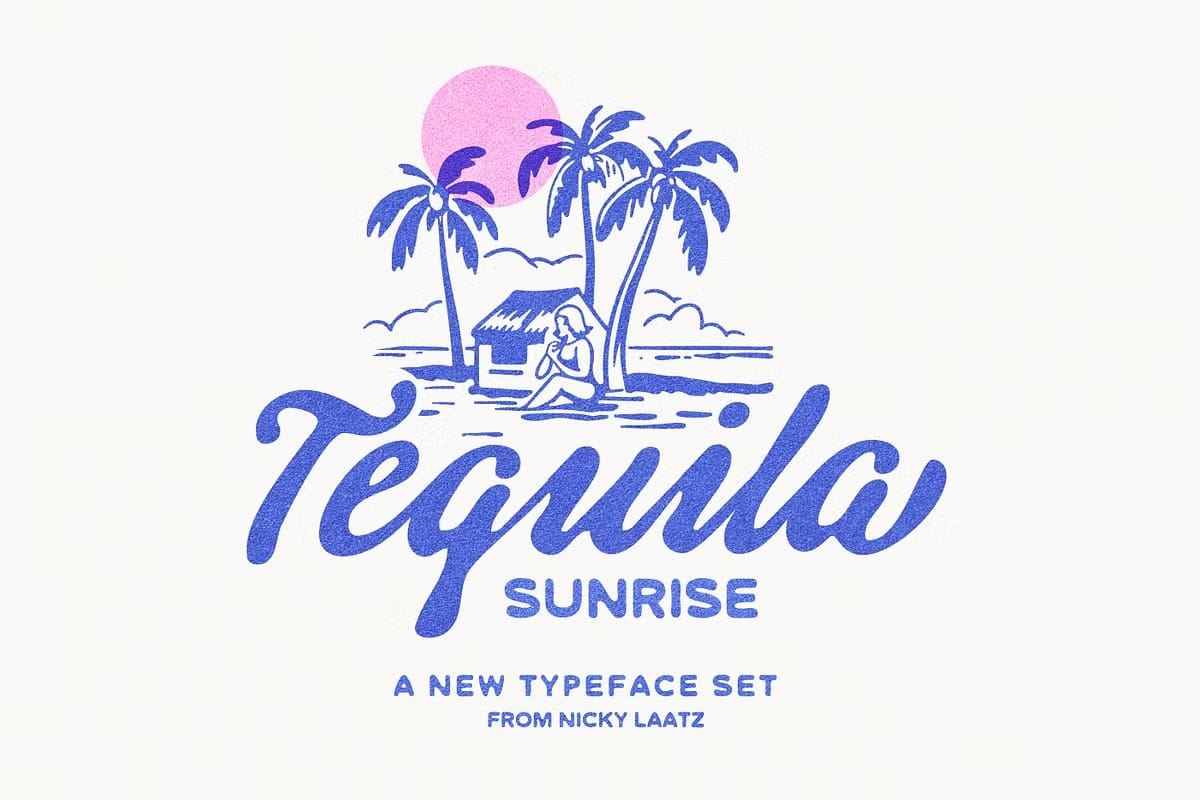
Tequila Sunrise: A Retro-Modern Typeface Duo with Bold Personality
Tequila Sunrise is a dynamic typeface duo that blends a retro-modern script with a perfectly matched inky sans. Designed to work together seamlessly, this font pairing delivers contrast, character, and flexibility for a wide range of creative projects. The combination of expressive script lettering and a strong sans-serif companion allows designers to build rich visual hierarchies while maintaining a cohesive typographic voice.
This typeface set captures the warmth of vintage design while embracing modern clarity, making it an ideal choice for branding, packaging, editorial layouts, and expressive display typography.
A Retro-Modern Script with Expressive Flow
The script font in Tequila Sunrise brings movement and personality to the foreground. Inspired by retro lettering styles yet refined for modern use, the script flows with confidence and elegance. Each letter connects naturally, creating a smooth rhythm that feels both nostalgic and fresh.
The script is designed to command attention without overwhelming the layout. Its balanced strokes and expressive curves make it ideal for headlines, logos, and focal text that needs a human and emotional touch.
OpenType Alternates and Ligatures That Elevate Design
Tequila Sunrise includes a rich set of OpenType features that allow the script to truly shine. Beautiful alternates and carefully crafted ligatures give designers the freedom to customize their typography with ease. These features introduce variety and refinement, ensuring that repeated letters never feel static or predictable.
With a few clicks, text transforms into a more organic and sophisticated composition, helping designs stand apart from standard script fonts.
An Inky Sans Designed to Complement
The inky sans component of Tequila Sunrise provides balance and structure. Its bold, slightly textured appearance pairs naturally with the expressive script, grounding the design while maintaining visual interest. This sans-serif font delivers clarity and strength, making it ideal for supporting text, subheadings, and body copy.
Together, the script and sans create a harmonious duo that works across a wide range of design applications.
Strong Contrast with Visual Harmony
The contrast between the flowing script and the sturdy inky sans creates a compelling typographic relationship. This pairing allows designers to emphasize key messages while keeping layouts clean and readable. The fonts complement each other without competing for attention.
This balance makes Tequila Sunrise especially effective for branding systems and multi-level typography.
Ideal for Branding, Packaging, and Display Use
Tequila Sunrise excels in branding and logo design, where personality and clarity are essential. The script adds warmth and uniqueness, while the sans ensures legibility and consistency across applications. This makes the font duo suitable for businesses seeking a distinctive yet professional identity.
In packaging design, the fonts bring a handcrafted, retro-inspired feel that attracts attention and communicates authenticity. From labels to promotional materials, Tequila Sunrise enhances visual storytelling.
Versatile Across Print and Digital Media
The typeface duo performs reliably across both print and digital formats. The script retains its expressive detail in large displays, while the sans remains clear and readable on screens. This versatility allows designers to use the fonts confidently across websites, social media, advertisements, and print collateral.
The consistency across platforms helps maintain a strong and recognizable brand presence.
A Typeface Duo Built to Stand Out
Tequila Sunrise is more than a font pairing; it is a complete typographic solution designed to bring retro charm and modern confidence together. The expressive script, enhanced with alternates and ligatures, combined with the supportive inky sans, gives designers the tools to create engaging and memorable designs.
For projects that demand standout typography with character, contrast, and versatility, Tequila Sunrise delivers a retro-modern font duo that leaves a lasting impression.